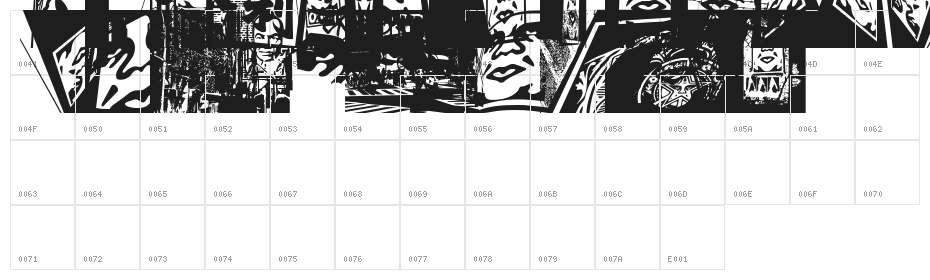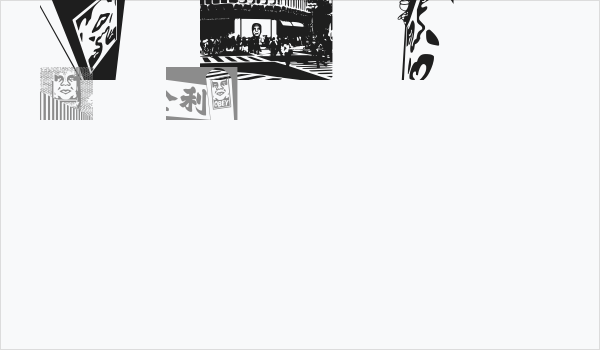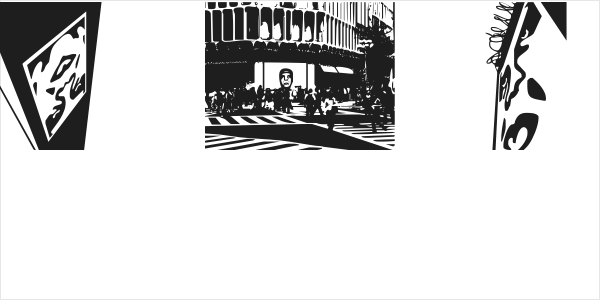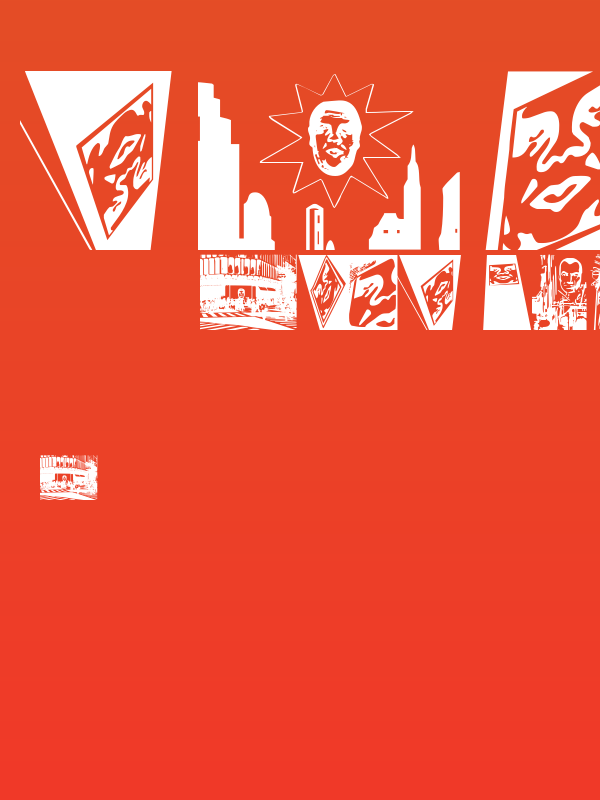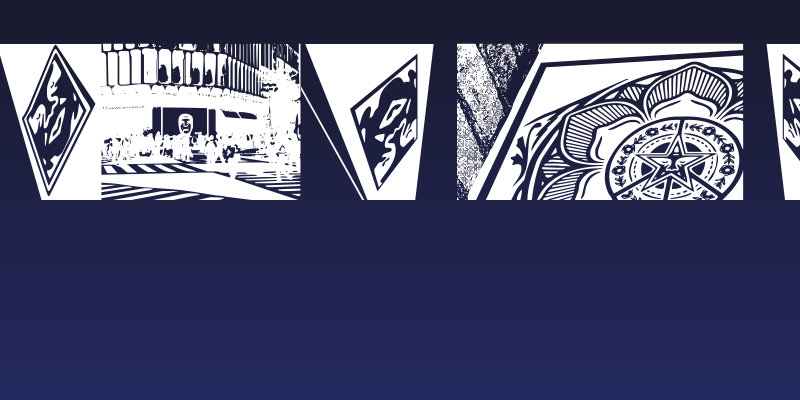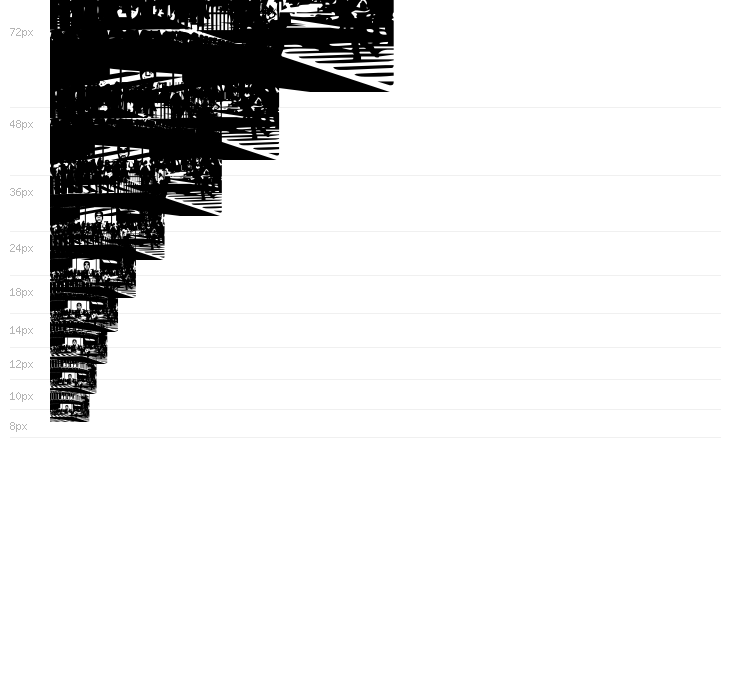
ObeyTownAlt Font
ObeyTownAlt Description
This font is a striking and bold decorative typeface that incorporates intricate graphic elements within each character. The letters are filled with detailed illustrations, creating a visually captivating and unique style. Each character is a piece of art, featuring urban and pop culture motifs that make it stand out. The font is highly stylized, with a strong emphasis on visual storytelling through its complex designs. It is not suitable for body text due to its decorative nature but excels in creating impactful headlines and artistic statements.
| Overall Style | Modern, Artistic |
| Use Case | Headlines, Logos, Artistic projects |
| Proposed Projects | Ideal for posters, album covers, street art projects, and branding that requires a bold, artistic statement. |